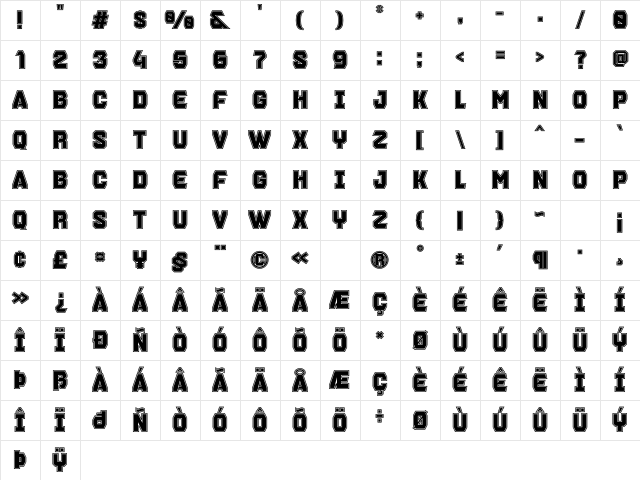
Complete Brentford In Line Personal glyph index. Displaying only characters natively supported by Brentford In Line Personal font.
Brentford is a composed and adaptable typeface that performs quietly and consistently across a wide range of design contexts.